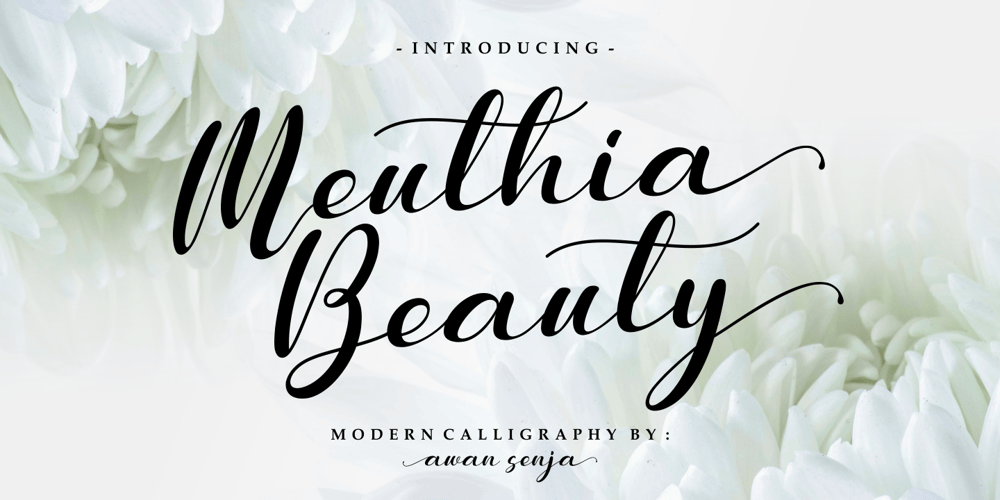
Meuthia Beauty Font Family was designed by Riyadh Abuhafs and published by Awan Senja. Meuthia Beauty contains 1 styles and family package options. Meuthia is a beautiful and classy signature font. This is a beautiful combination of timeless elegance and authentic calligraphy. It features an incredibly classic style, while still keeping a friendly feel. Fall in love with its authentic feel and use it to create gorgeous wedding invitations, beautiful stationary art, eye-catching social media posts, and cute greeting cards.This font is PUA encoded which means you can access all of the amazing glyphs and swashes with ease! It also features a wealth of special features including alternate glyphs and ligatures.